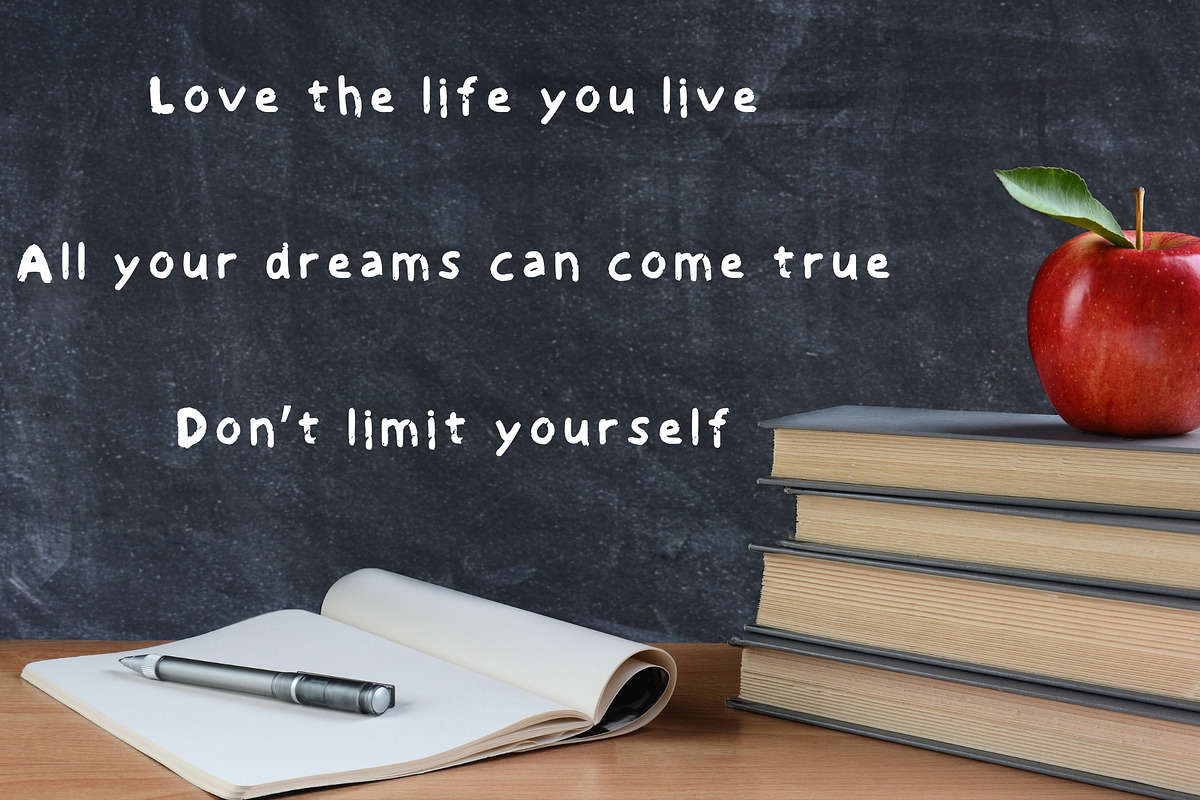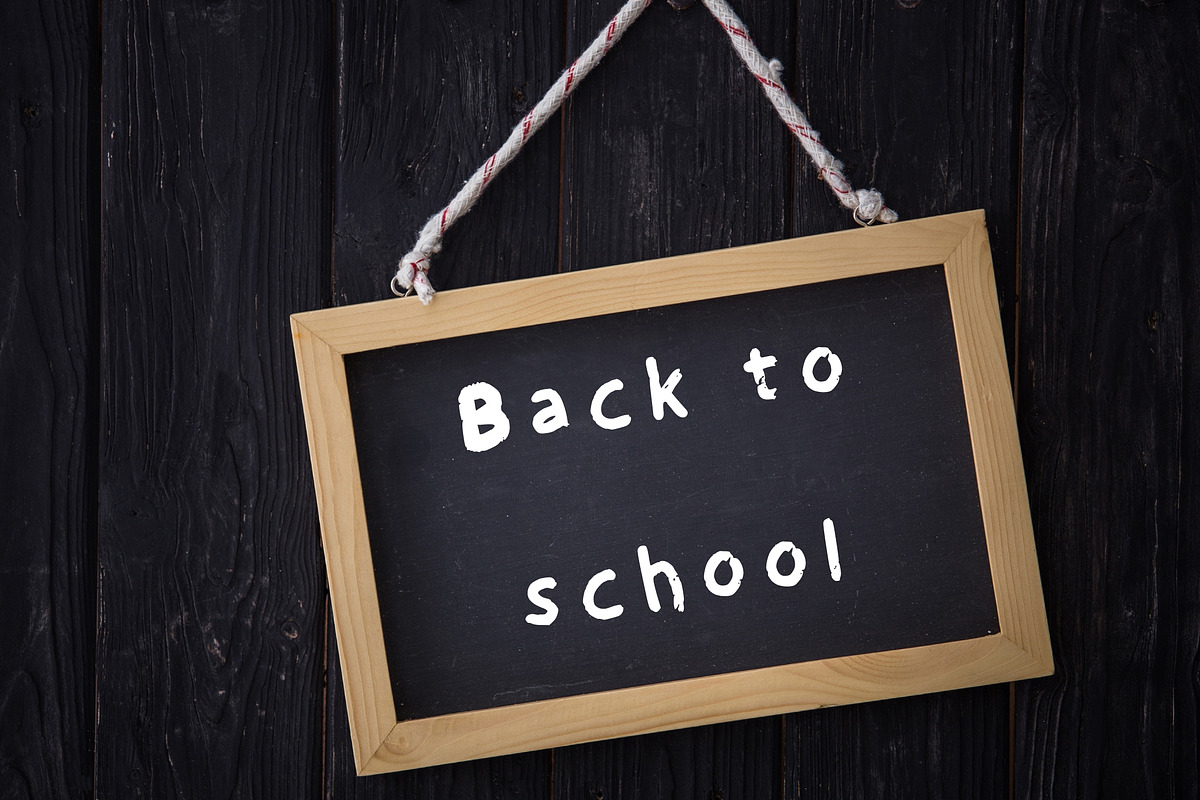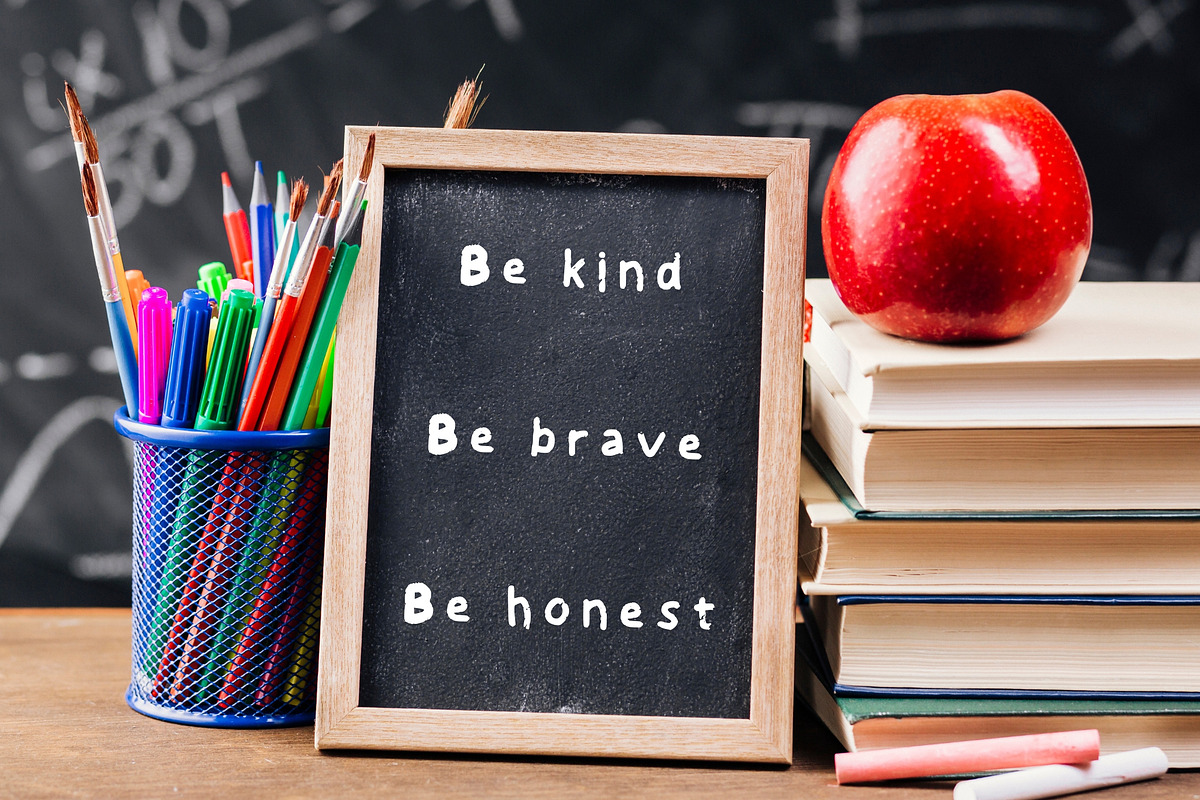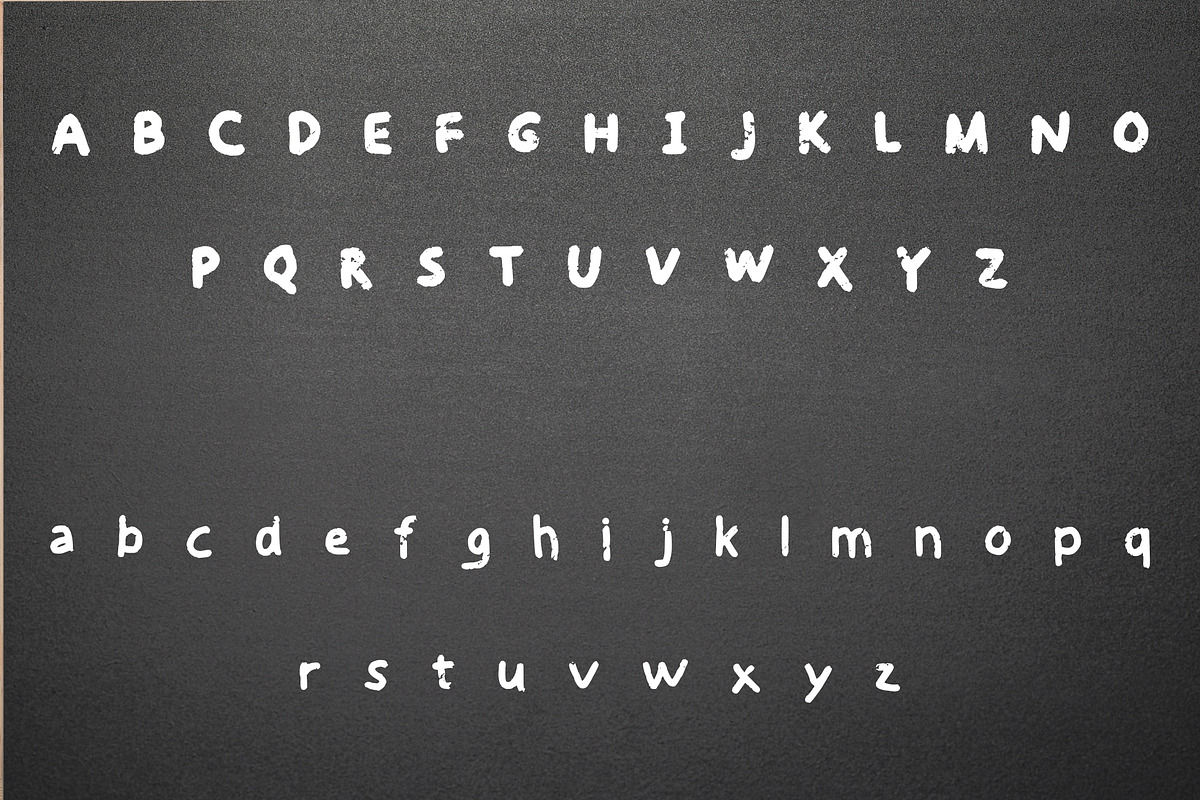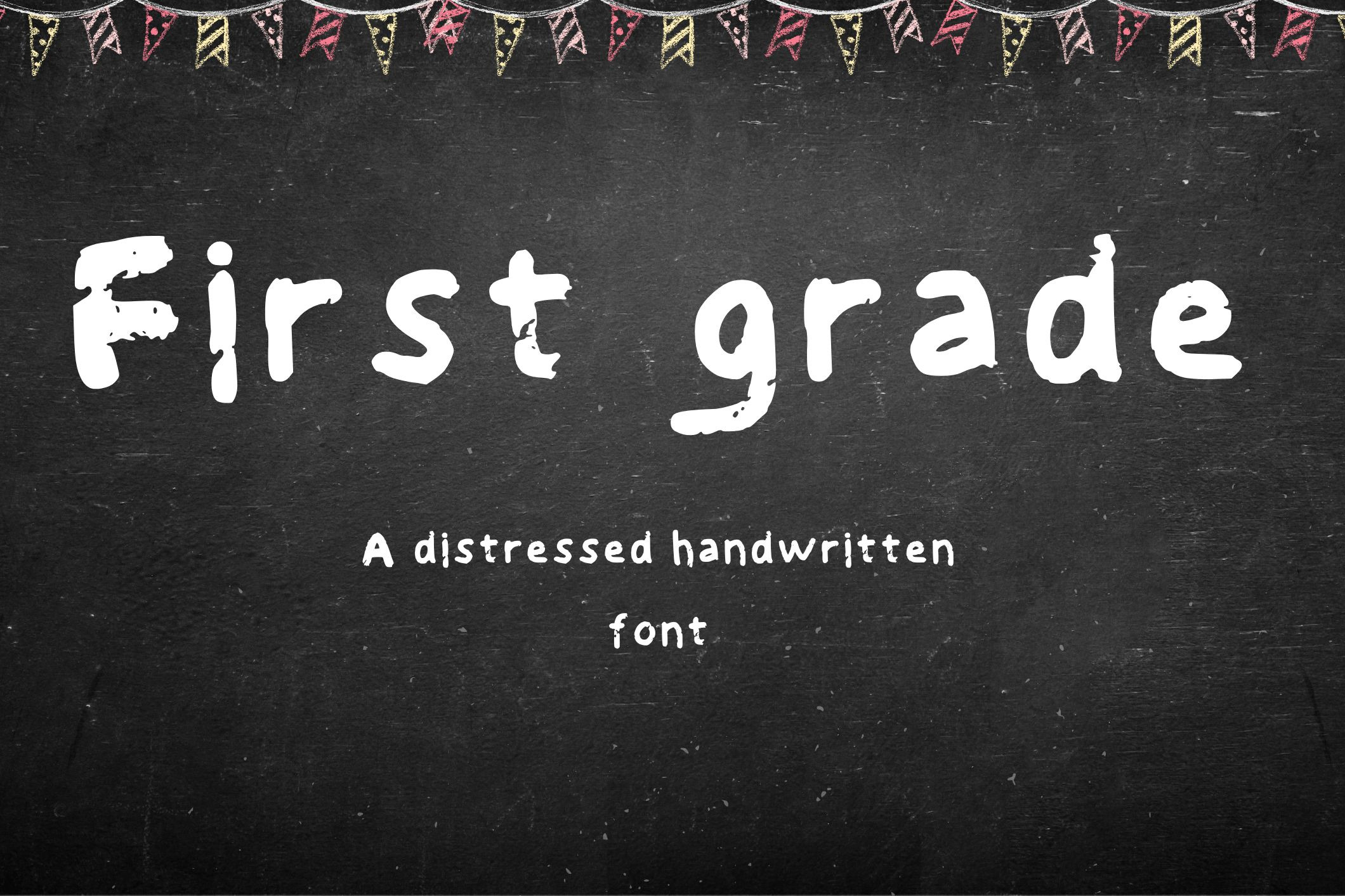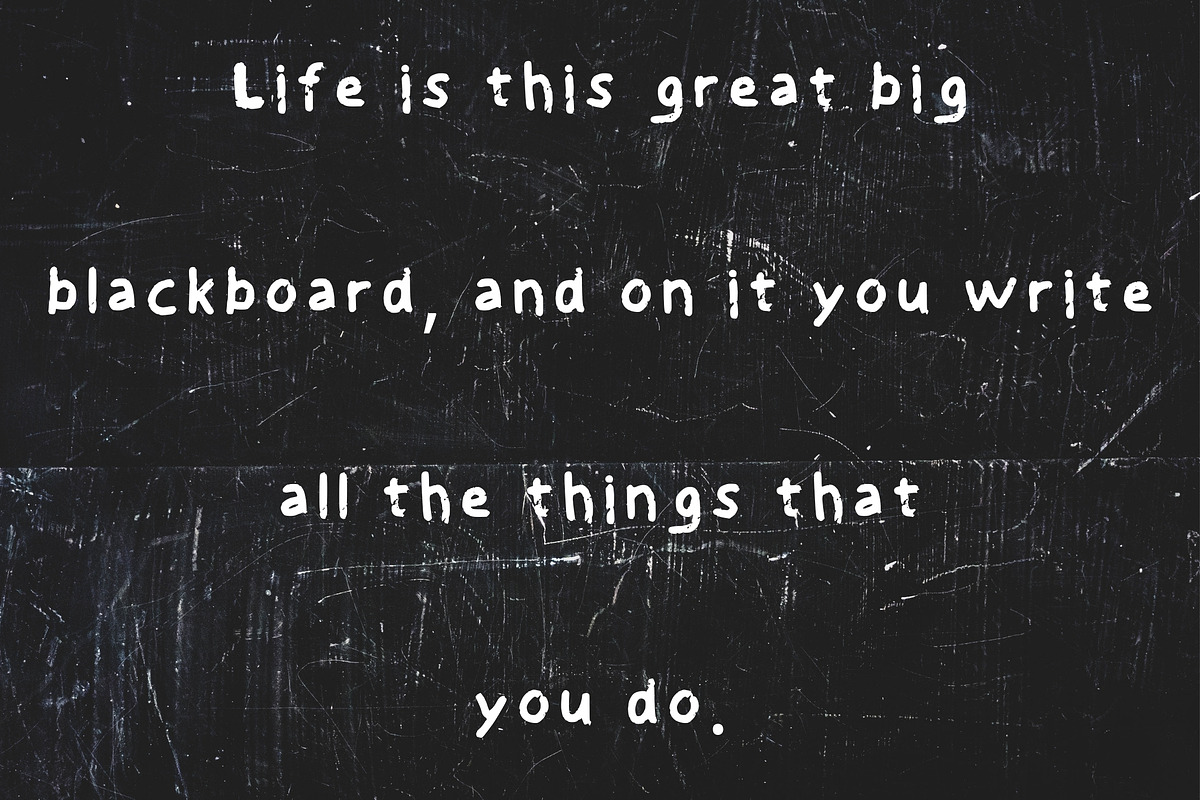
First grade - Handwritten chalk font
First grade - A handwritten font.
It’s perfect for teachers, students, projects related to schools, T-shirt designs, school invitations, toddler’s crafts & more…
Features: UPPERCASE & lowercase only.